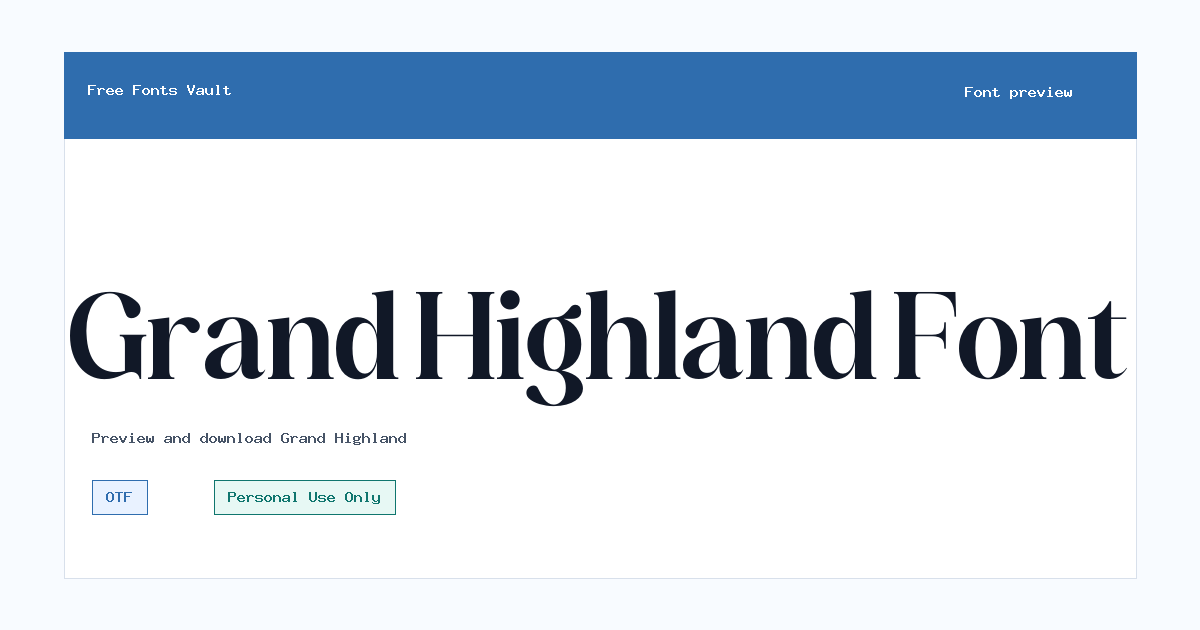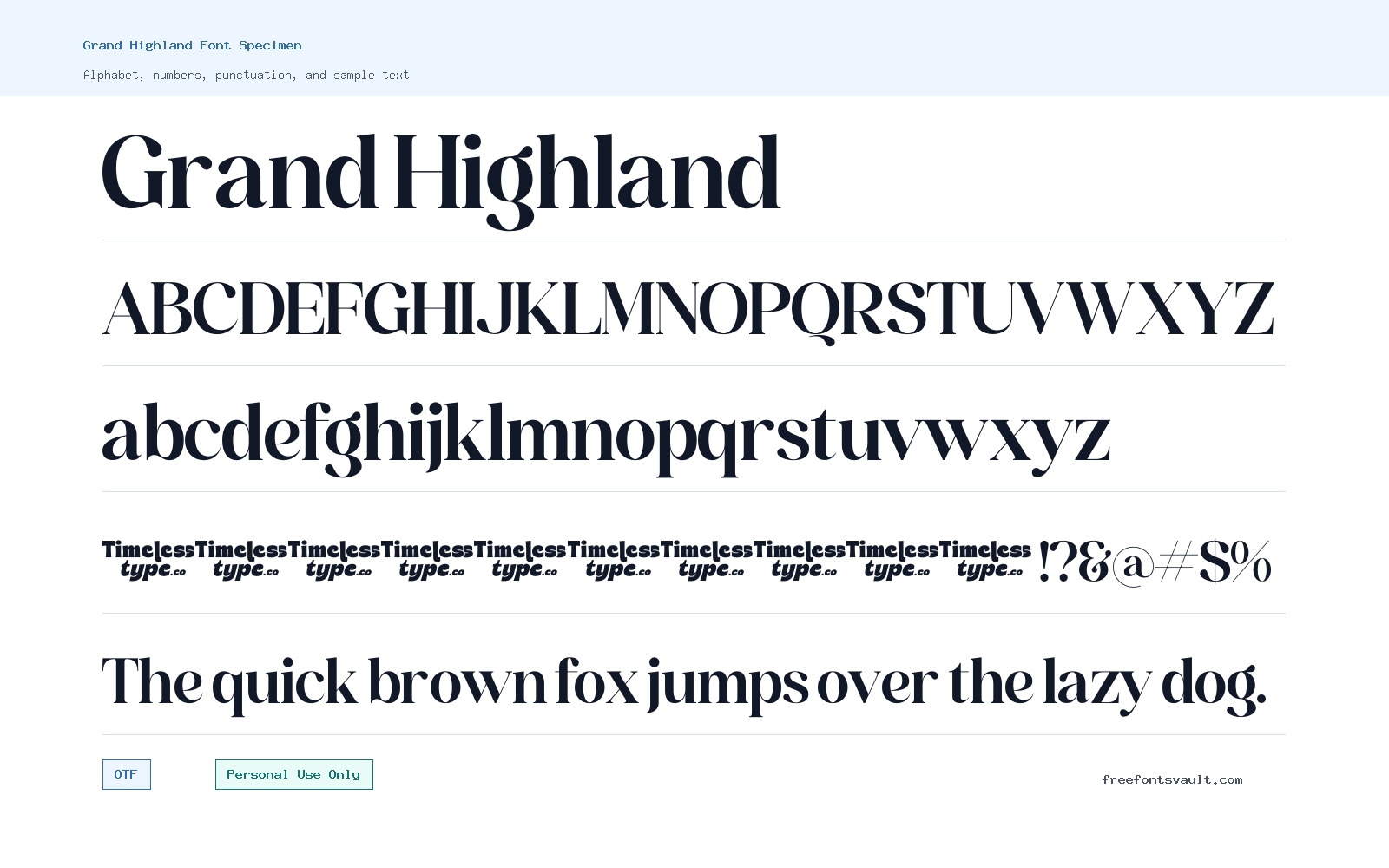
Grand Highland
- Designer Heru Utama Putra
- Foundry TimelessType
Grand Highland is a serif font family with a regular OTF style, suited to visitors who want a refined display typeface for testing headlines, branding drafts, posters, and visual mockups.
About Grand Highland Font
Grand Highland works best when you treat it as a display serif rather than an everyday body-text font. Its name and serif classification point toward a more decorative, polished personality, so it is a better fit for short pieces of text where the letter shapes can be seen clearly. Try it in the preview tool with brand names, wedding-style headings, editorial titles, packaging mockups, quote graphics, and poster lines. Keep the sample text short at first: one word, two-word titles, initials, or a compact phrase will show the rhythm of the font more clearly than a full paragraph.
For logo work and branding concepts, Grand Highland can be useful in early mockups where you want a serif with a formal tone. Test uppercase and lowercase separately, then check how the spacing behaves in the exact word you plan to use. Some display serifs look strong in a single word but become harder to read in long names, narrow layouts, or small mobile previews. If you are using it for posters or social graphics, give the letters enough breathing room and avoid placing them over busy images unless the contrast is high. For web mockups, use it for hero headings, section titles, badges, or decorative pull quotes, then pair it with a simple sans serif for menus, captions, and longer text.
- Serif display direction suited to short titles, branding drafts, posters, and editorial-style headings.
- Best tested at larger sizes where the character details remain visible.
- Works well as a headline face when paired with a cleaner, quieter text font.
- Logo drafts and brand concept previews
- Poster titles and event artwork
- Editorial-style headings
- Packaging or label mockups
- Wedding, boutique, or invitation-style layouts
- Pinterest graphics and social-media title cards
- Website hero headings in design mockups
- Short quotes or decorative pull-quote treatments
Who designed Grand Highland?
Grand Highland is credited to Heru Utama Putra, with TimelessType listed as the foundry.
What kind of projects is Grand Highland good for?
It is best suited to short display uses such as logo drafts, posters, invitations, packaging concepts, headings, quote graphics, and web hero mockups.
Is Grand Highland good for body text?
It is better used for headings and short text. For paragraphs, pair it with a clean, readable sans serif or text serif.
What should I pair with Grand Highland?
Pair it with a simple sans serif for a balanced layout. Let Grand Highland handle the title or logo area, and use the supporting font for descriptions, buttons, captions, and navigation.
Should I adjust spacing when using Grand Highland?
Yes. Test the spacing in your exact word or headline, especially for logos and poster titles. Display fonts often need small tracking or kerning adjustments to look balanced.